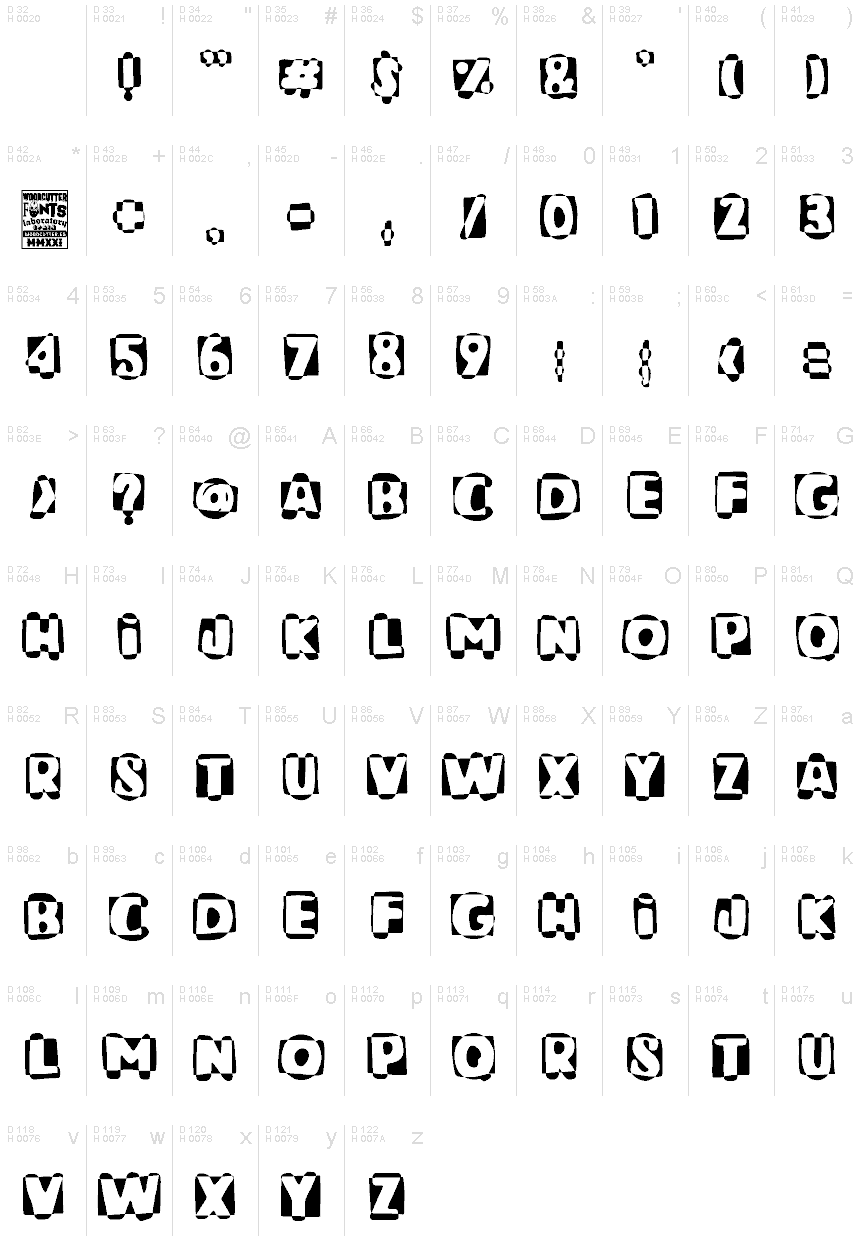
Mandarino Party
Mandarino Party font by Woodcutter is a bold decorative cartoon typeface that projects a playful and fun vibe. Fun, luminous, and whimsical, it combines thick geometric letters with rounded corners to achieve its retro-inspired look. The font design is suitable for getting readers’ attention through poster headers, magazine covers, packaging typography ideas, and apparel designs.
Get creative with the words on your video game interface or even in-game text. Or use this free display font in journal covers, event invitations (e.g., birthday cards), webpage banners/headers, book covers interested in a specific audience (e.g., preschoolers), or any other work that you find appropriate.